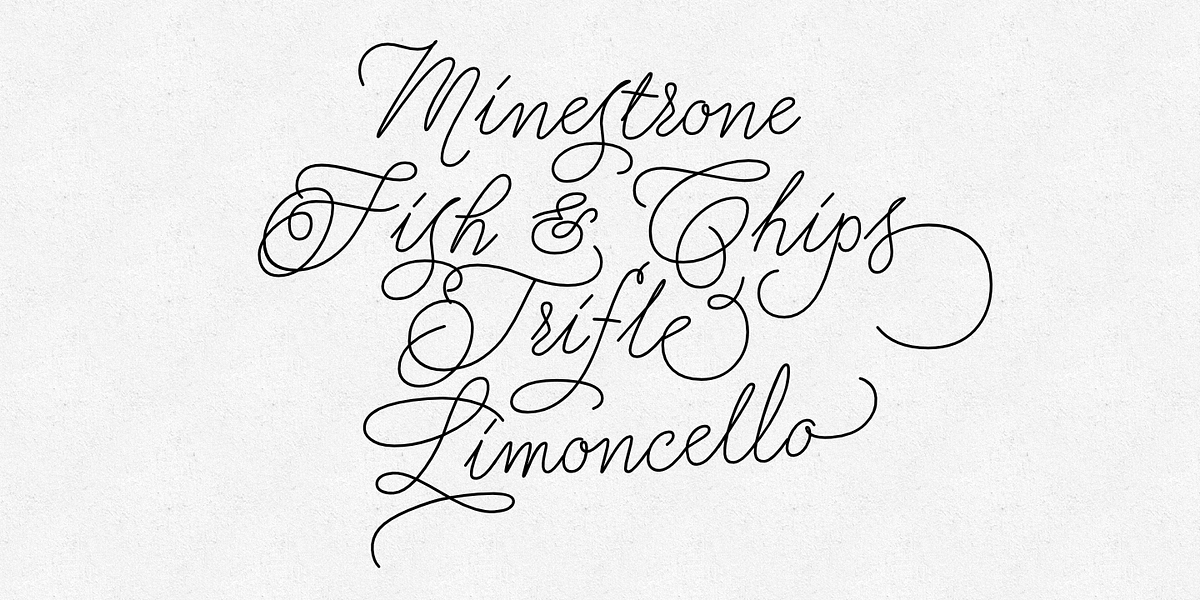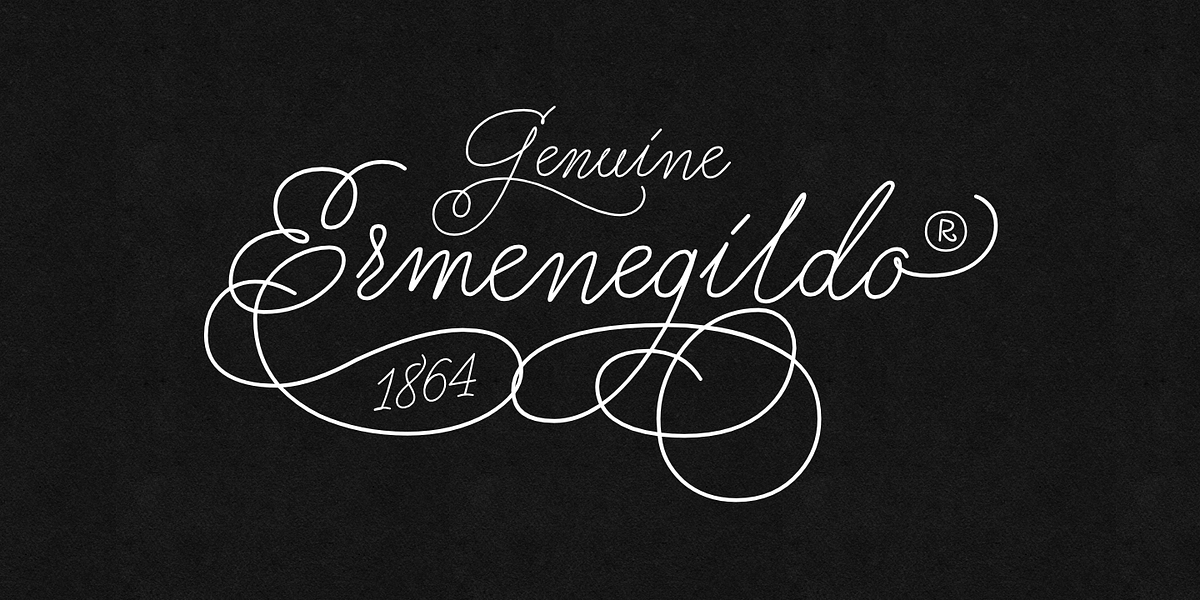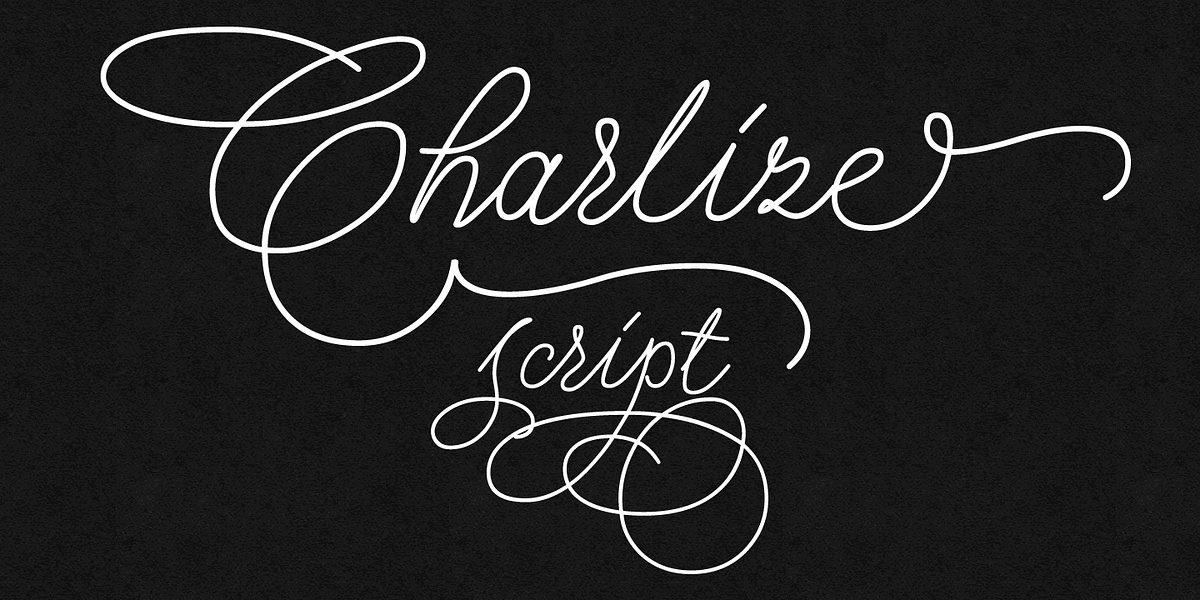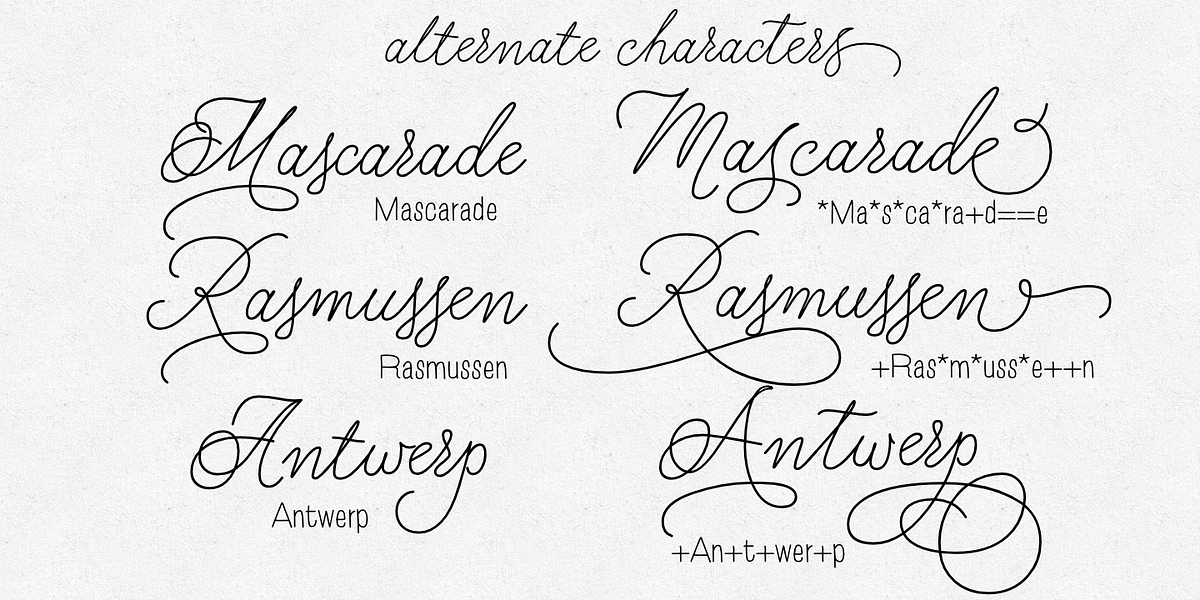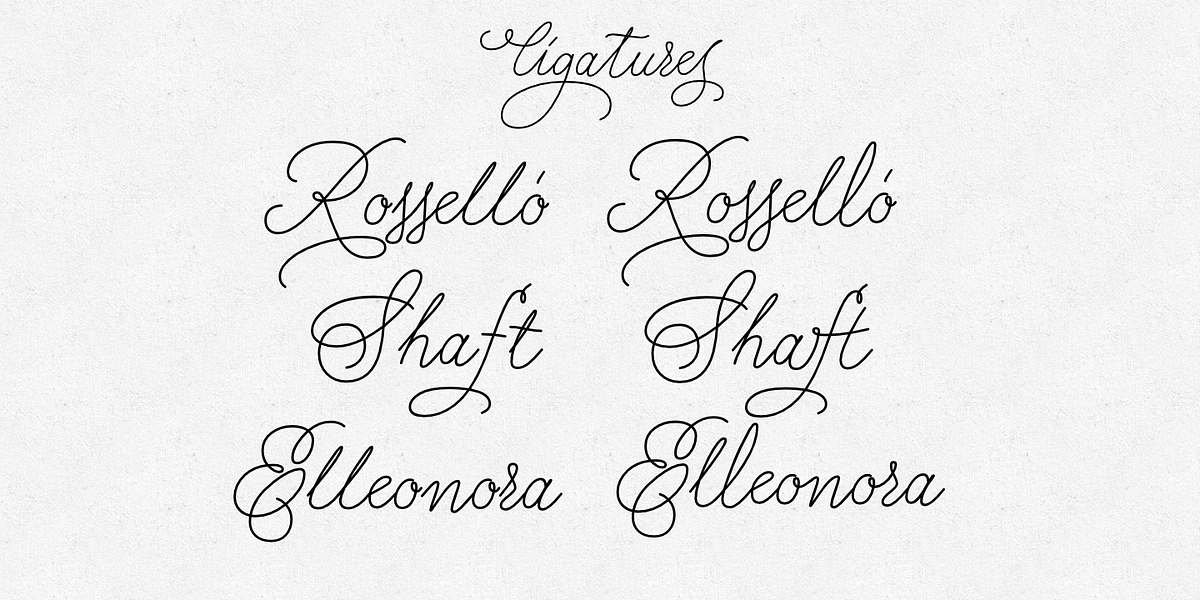
Charlize
Charlize is an elegant handwritten formal script font designed for readability with the inclusion of ligatures. It comes in three versions: Charlize Pro (with over 740 glyphs and extensive alternate character support), Charlize One, and Charlize Two (both containing fewer glyphs and selected alternates/ligatures). Its broad language support makes it suitable for a variety of projects.